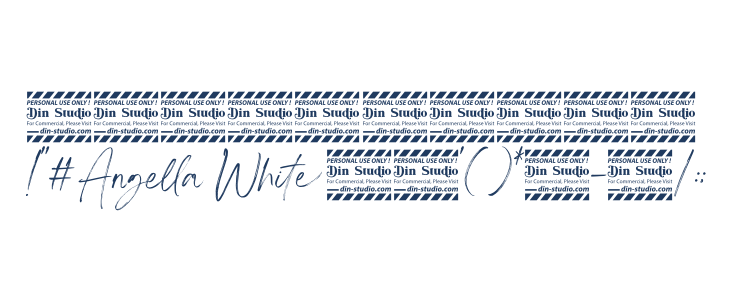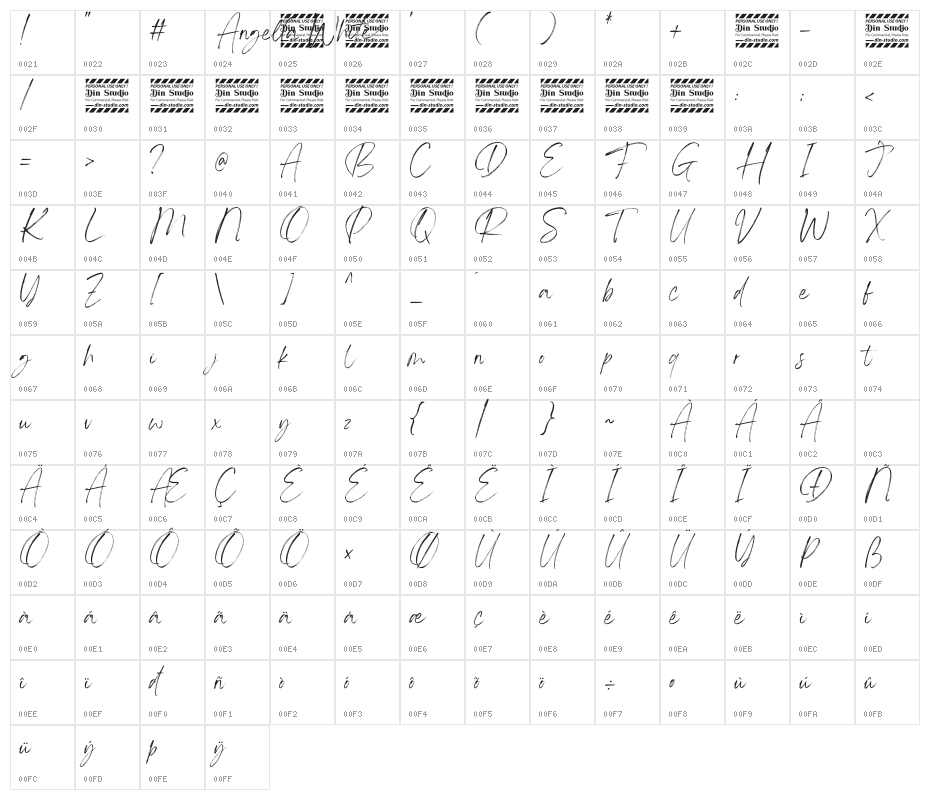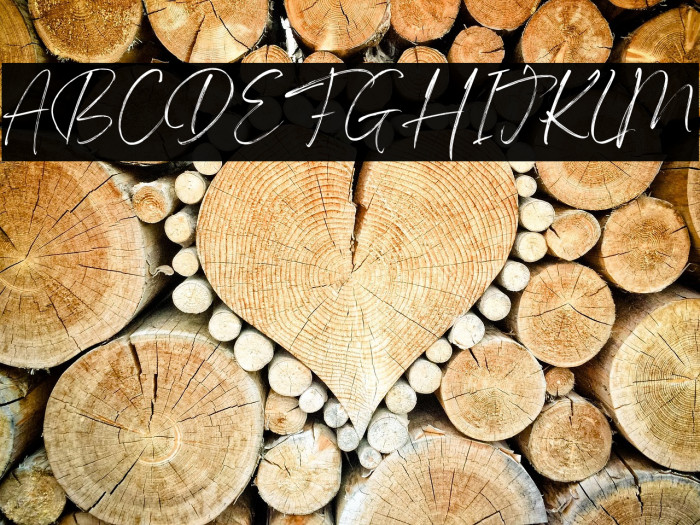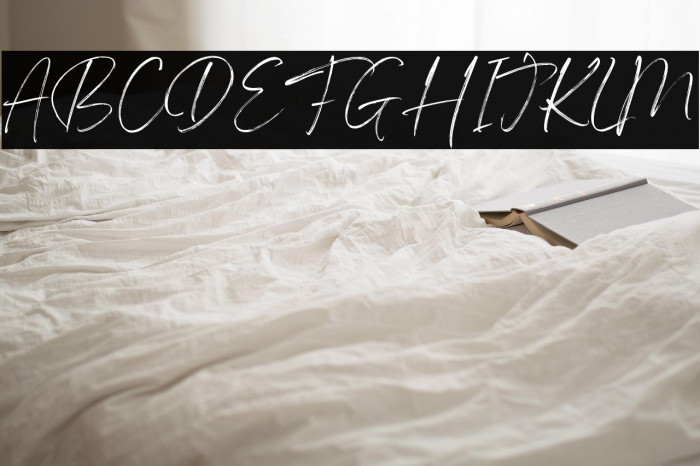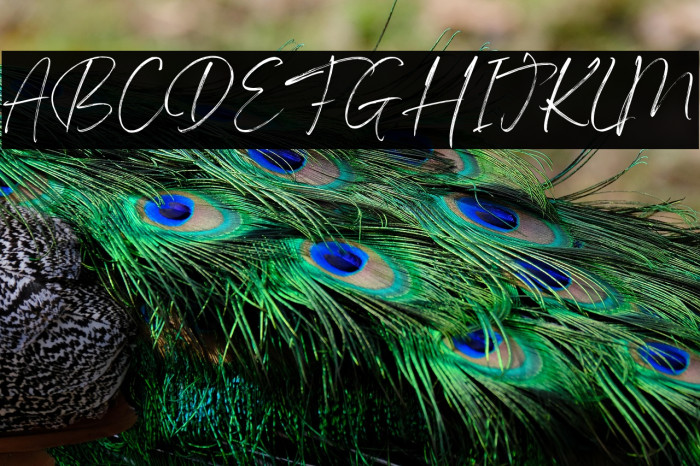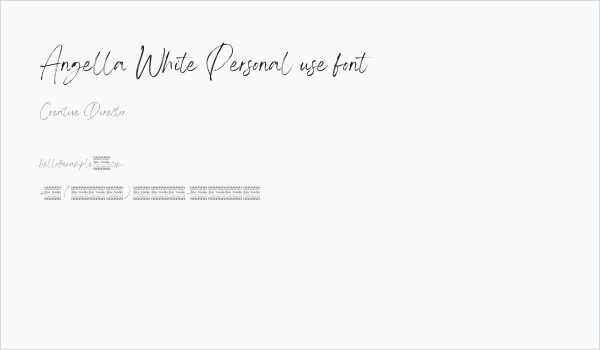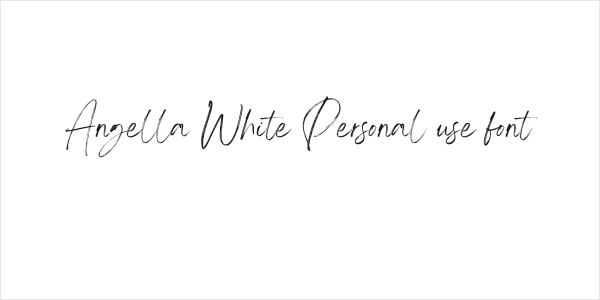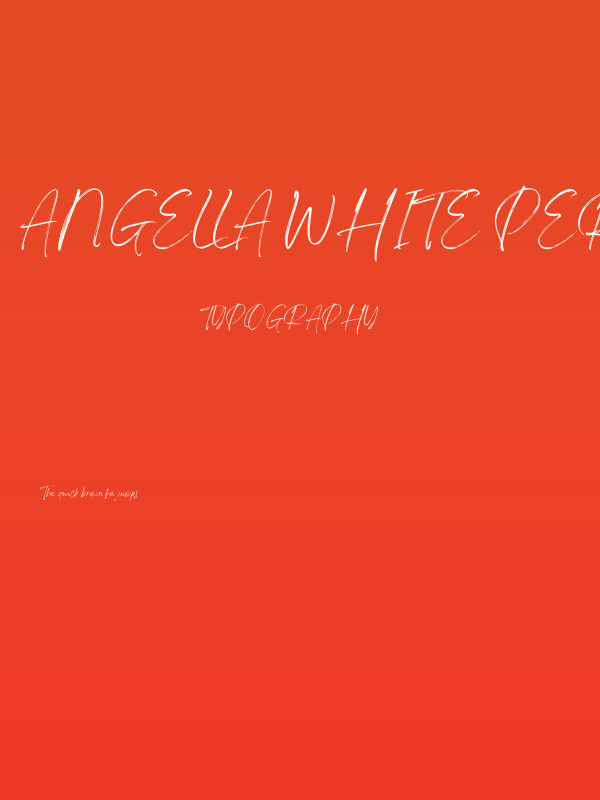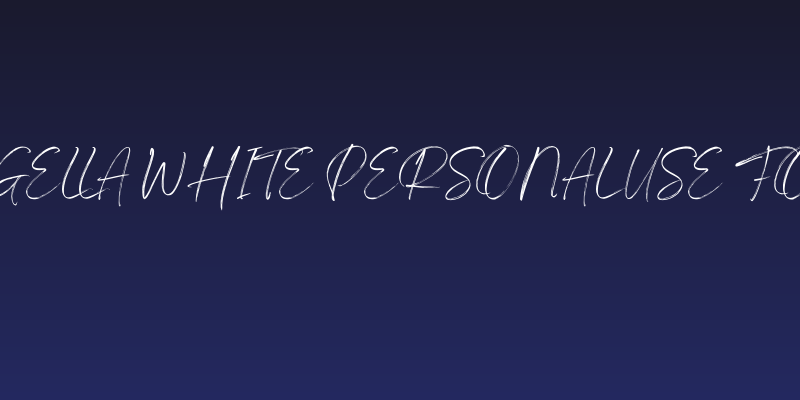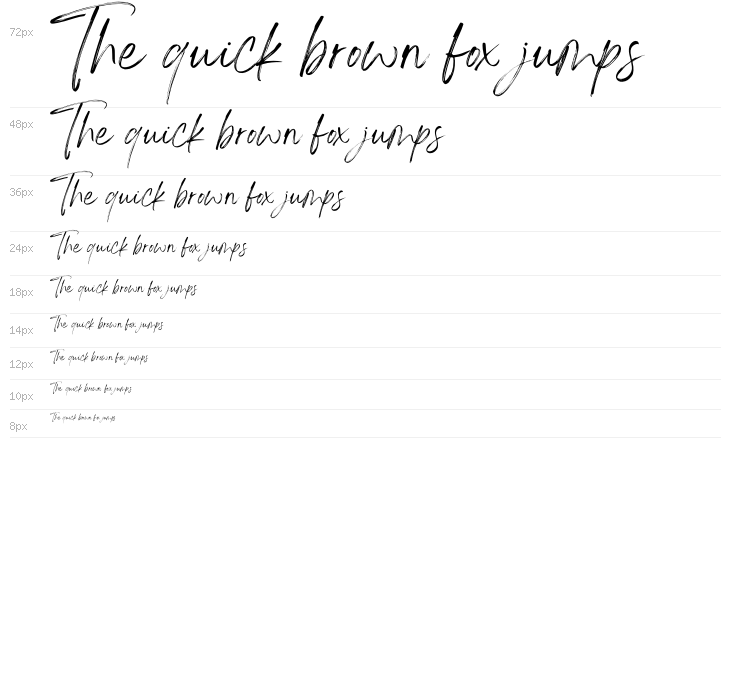
Angella White Personal use font Font
Angella White Personal use font Description
This font exudes a modern, handwritten style with a touch of elegance and fluidity. The characters are crafted with a natural, flowing script that mimics the strokes of a calligraphy pen. Each letter is distinct, with a slight slant that adds to its dynamic appearance. The uppercase letters are bold and prominent, while the lowercase letters maintain a consistent, graceful form. The font features a medium contrast in stroke thickness, enhancing its readability while preserving its artistic flair. The spacing between characters is normal, allowing for clear legibility without sacrificing the font's aesthetic appeal. This font is ideal for projects that require a personal, artistic touch, such as invitations, greeting cards, and branding materials.
| Proposed Projects | Ideal for invitations, greeting cards, branding, and artistic projects. |